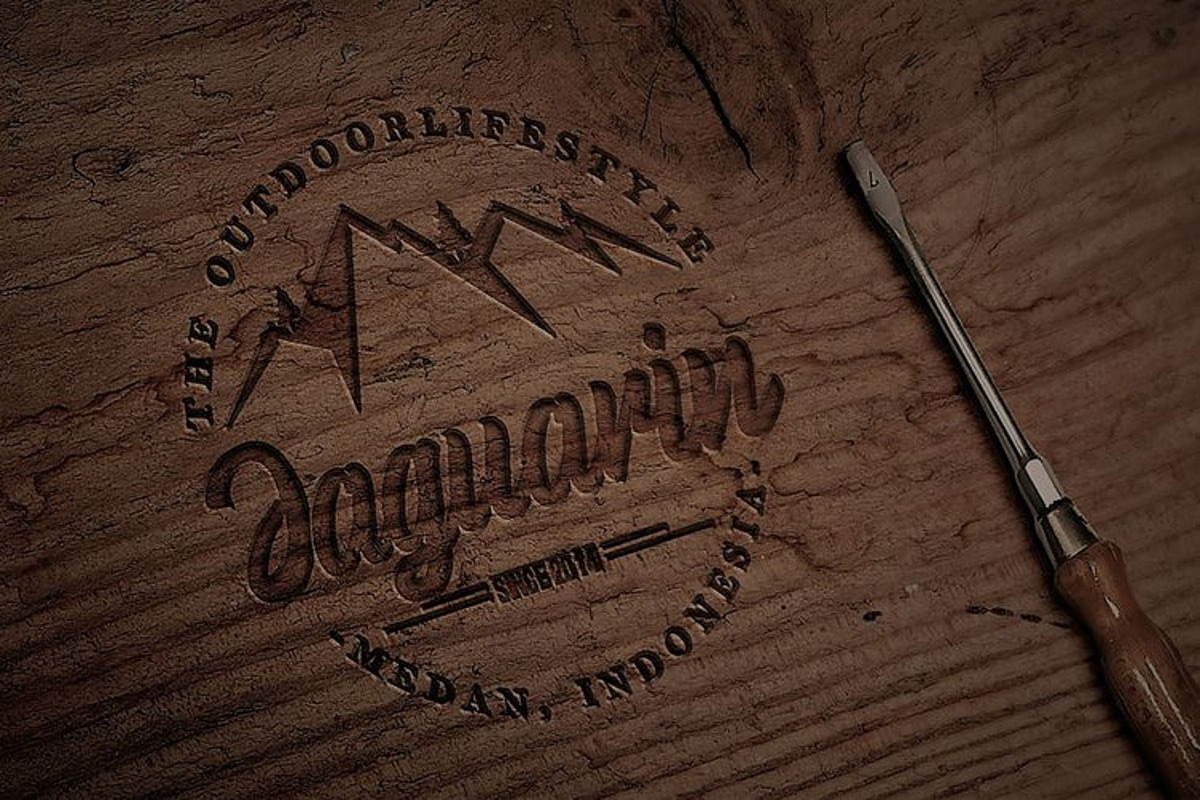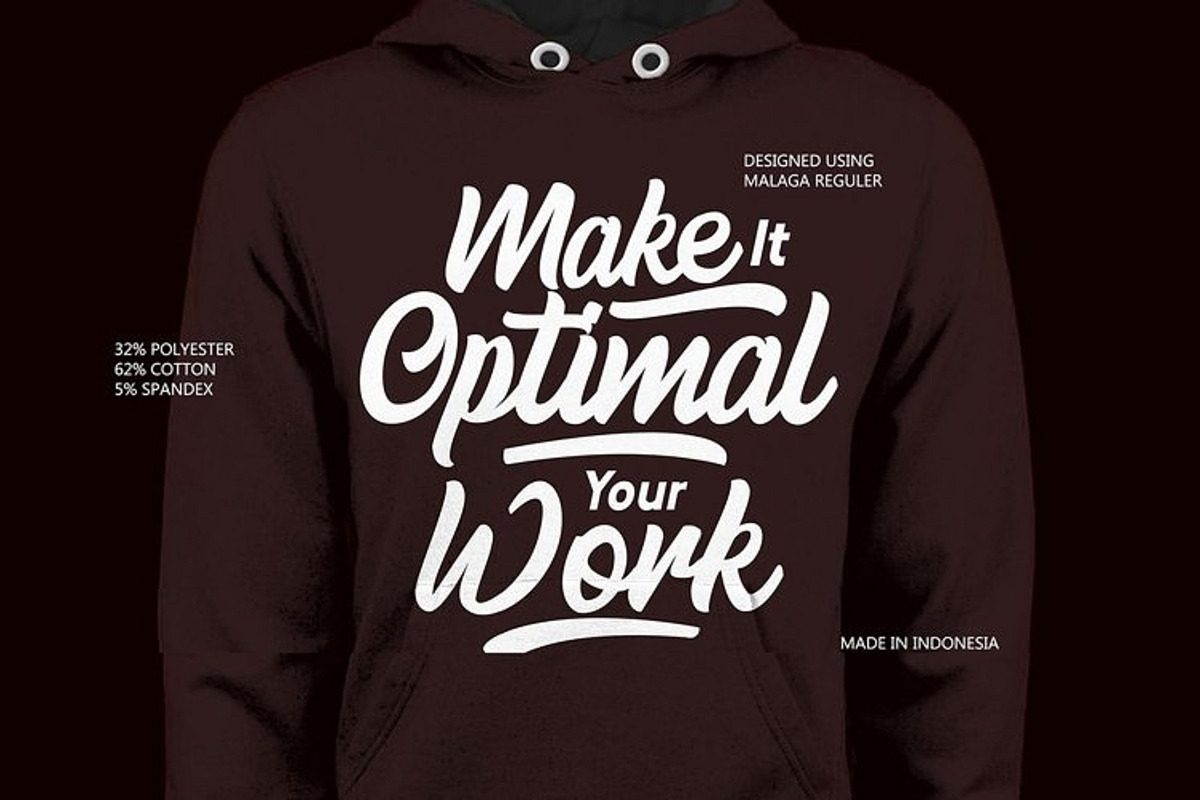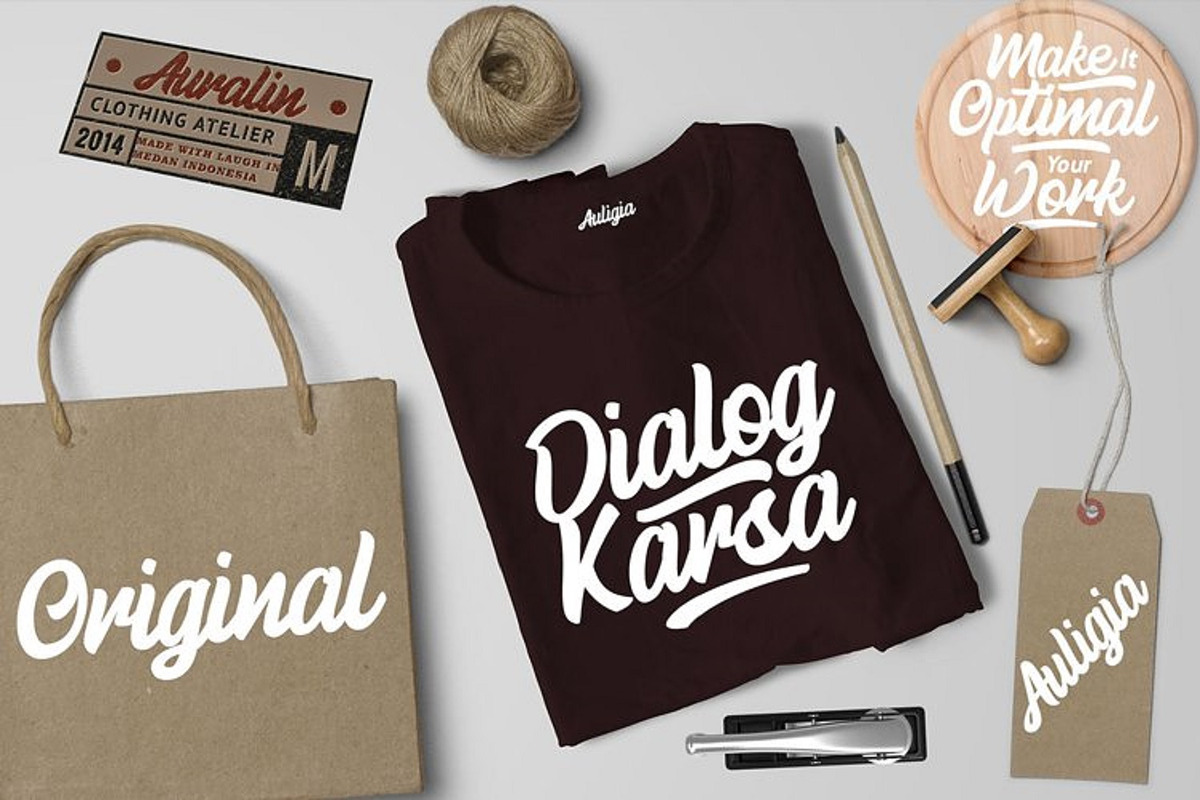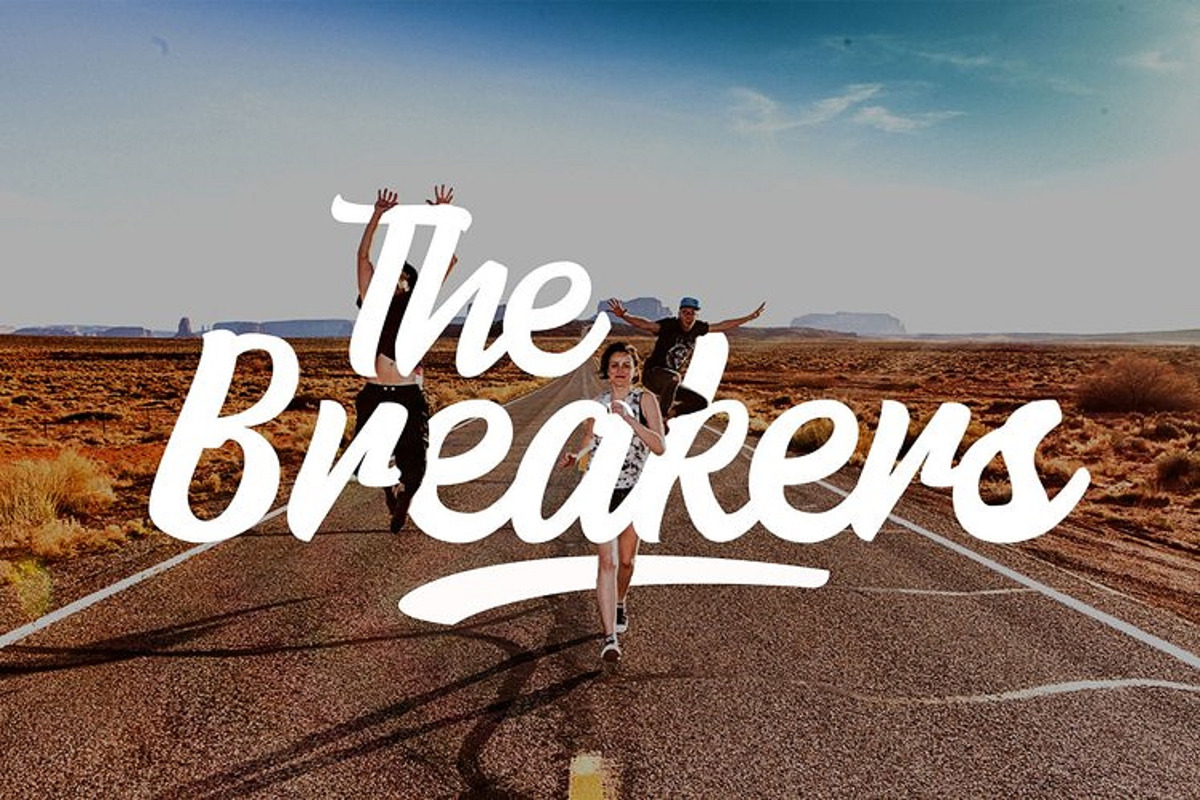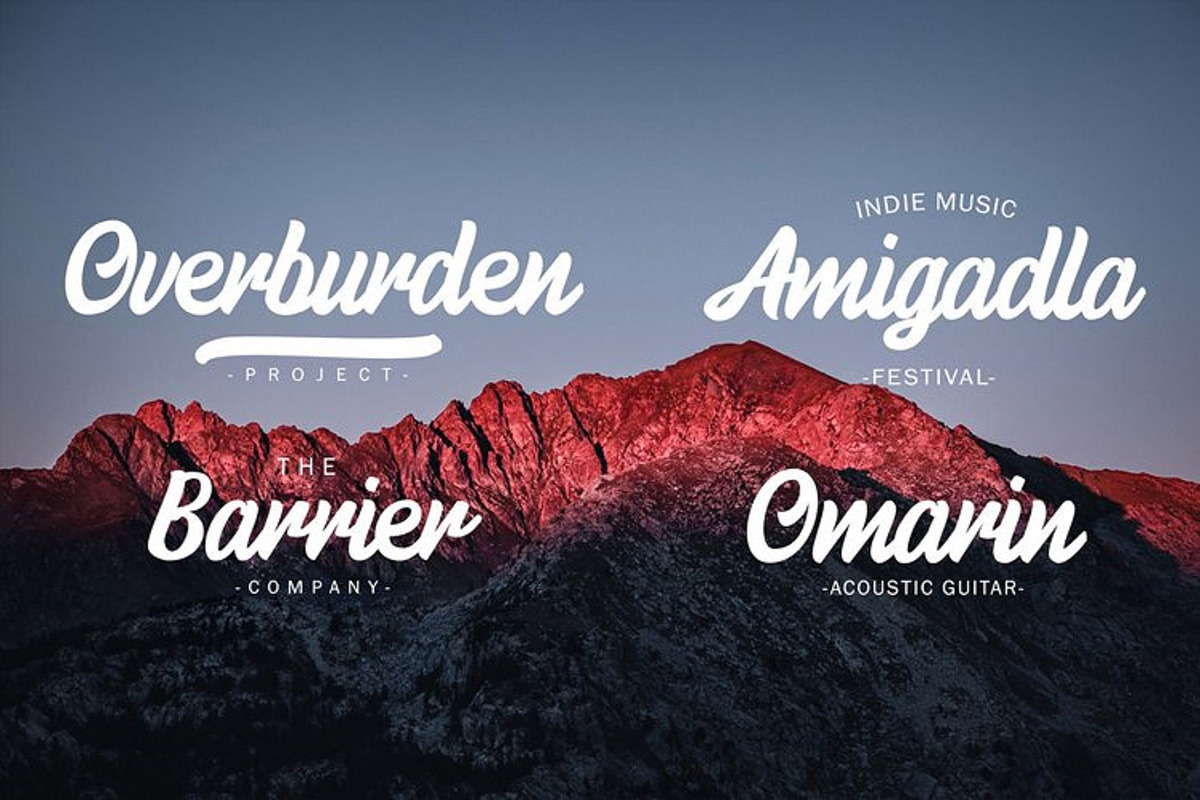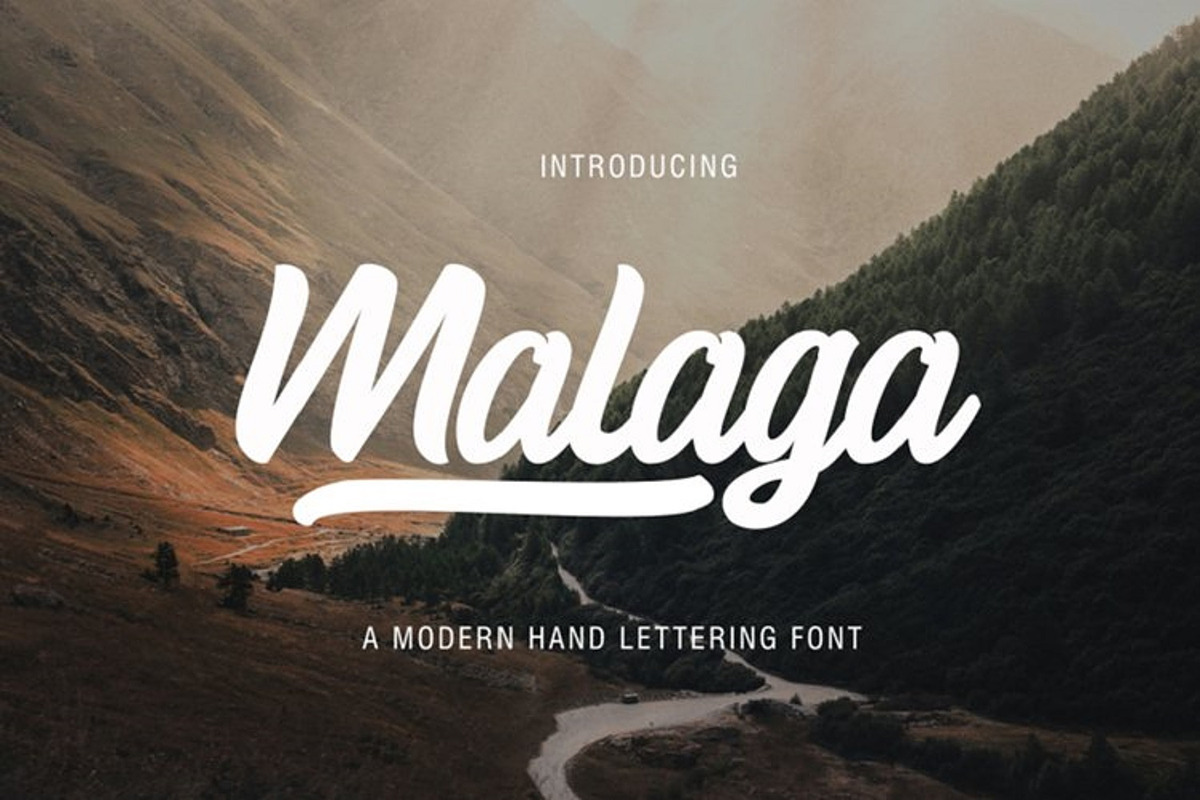
Malaga Script for Branding
Malaga – Modern Hand Lettering Font
Malaga is a modern script font with a smooth, hand-lettered style. Designed to convey a casual yet professional feel, Malaga is perfect for branding, logos, quotes, wedding invitations, packaging, and various creative projects.
With its flowing strokes and naturally connected letters, Malaga adds a warm and personal touch to your designs. It also includes stylistic alternates and ligatures for extra typographic variation and creativity.
- Stylistic alternates & ligatures
Great for logos, posters, and product packaging